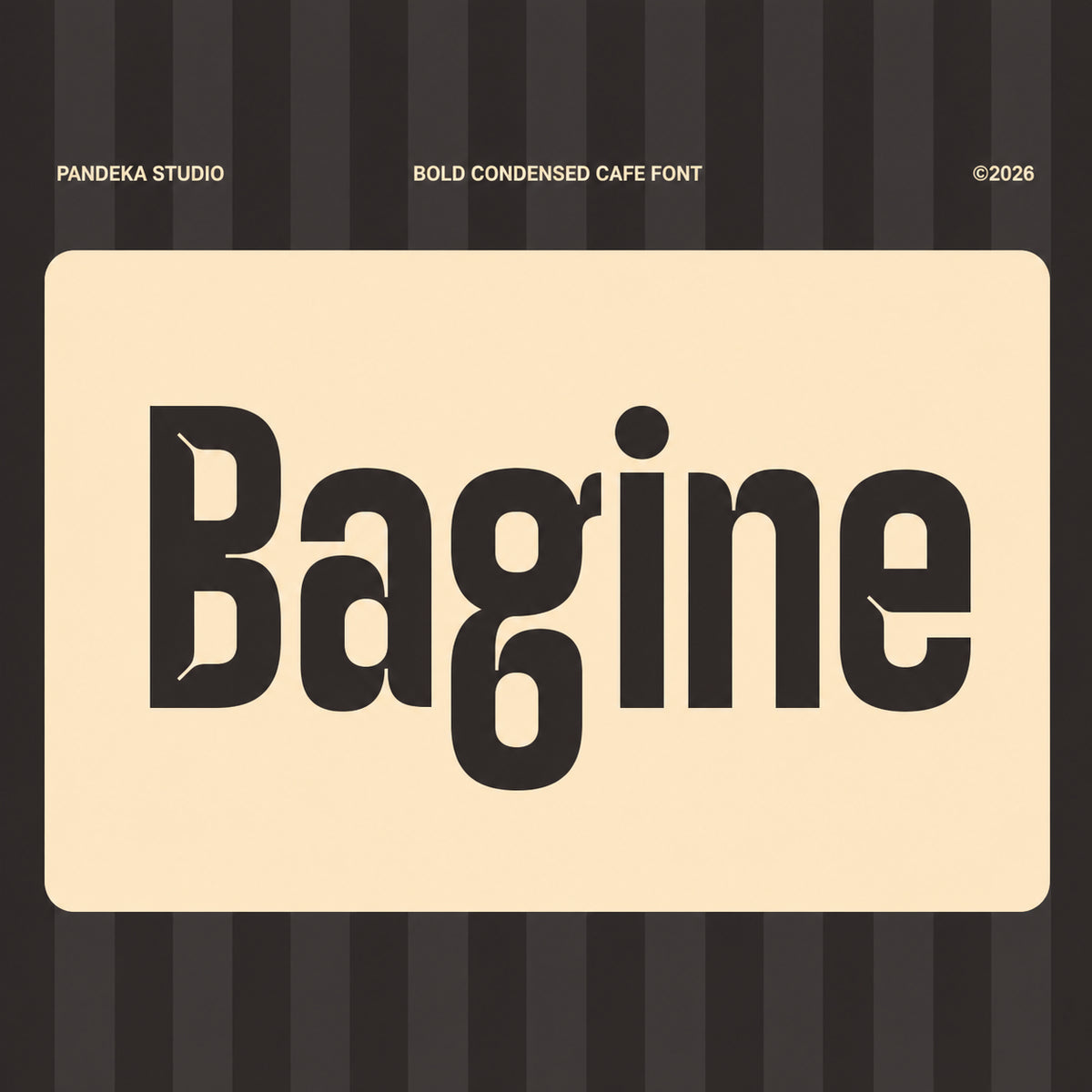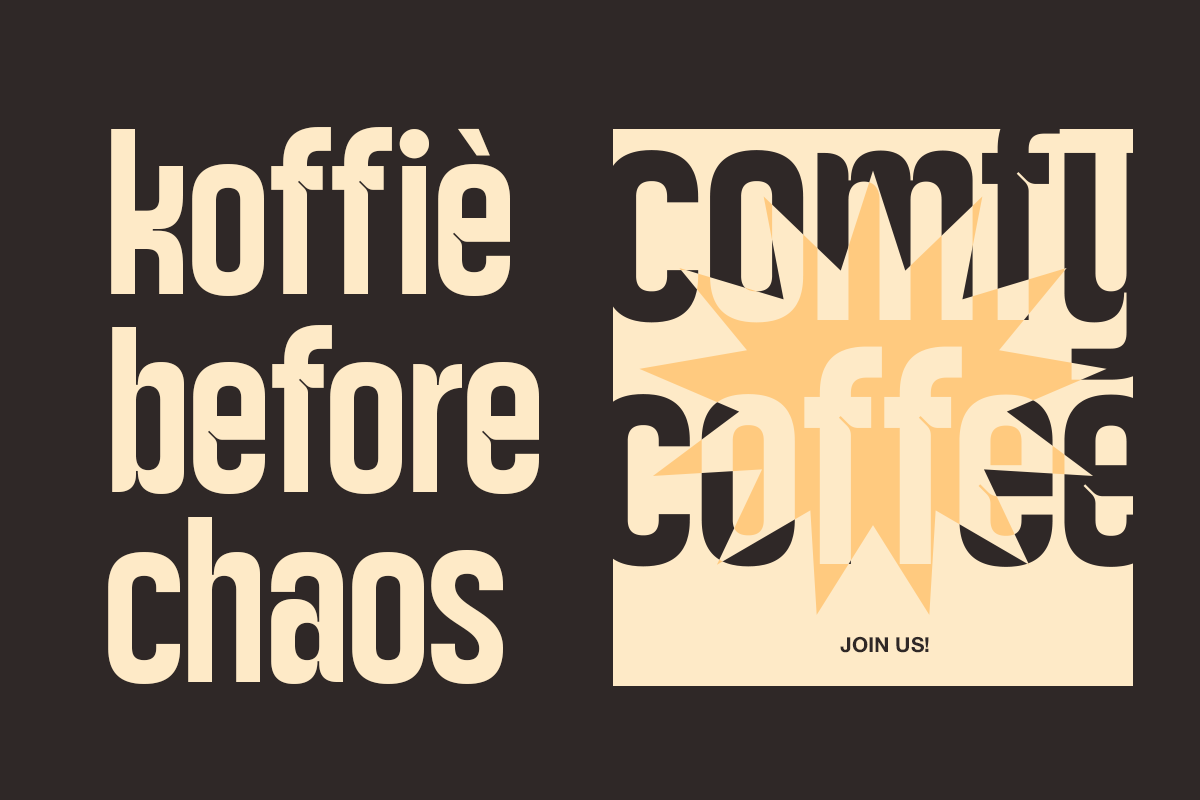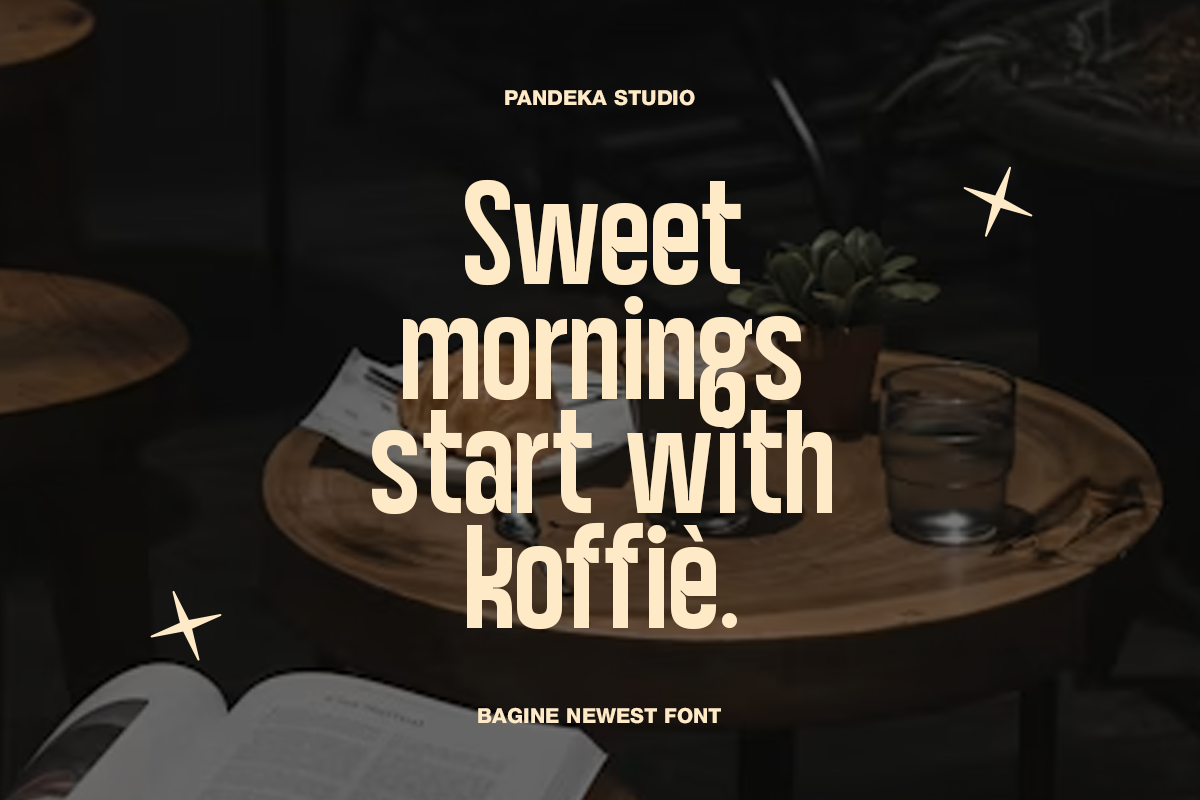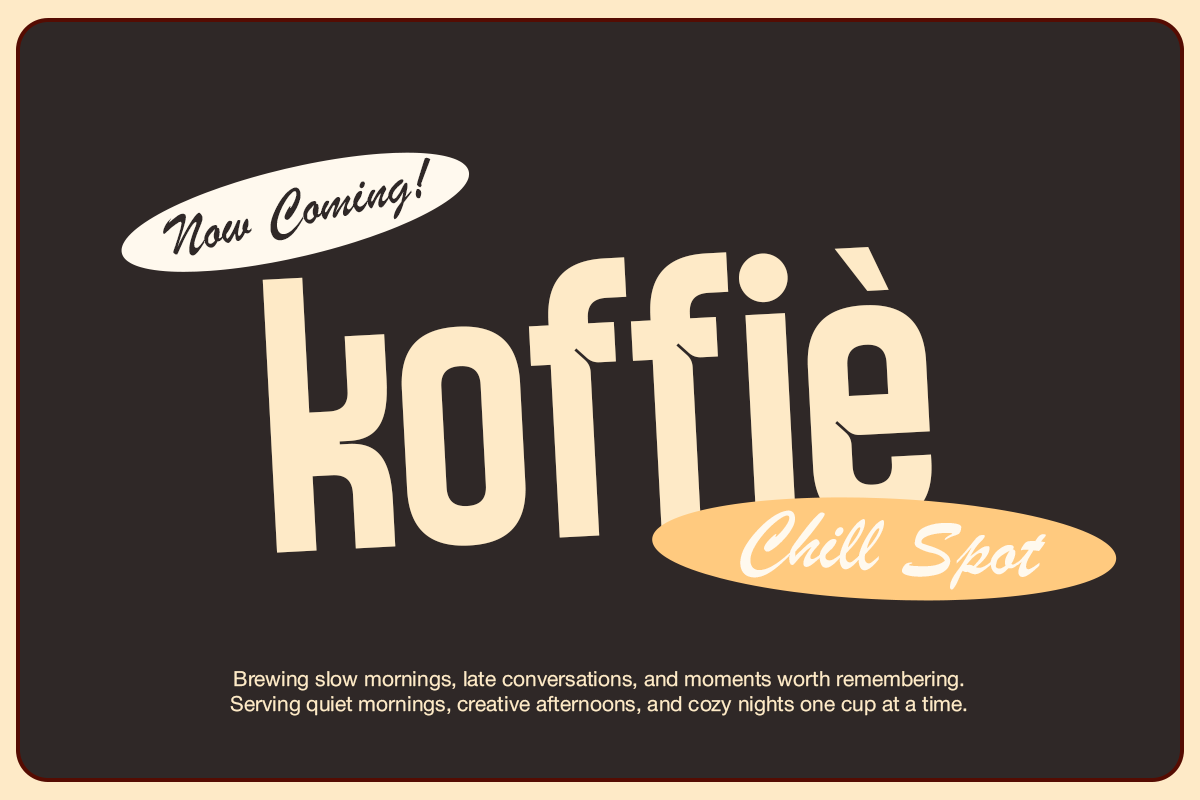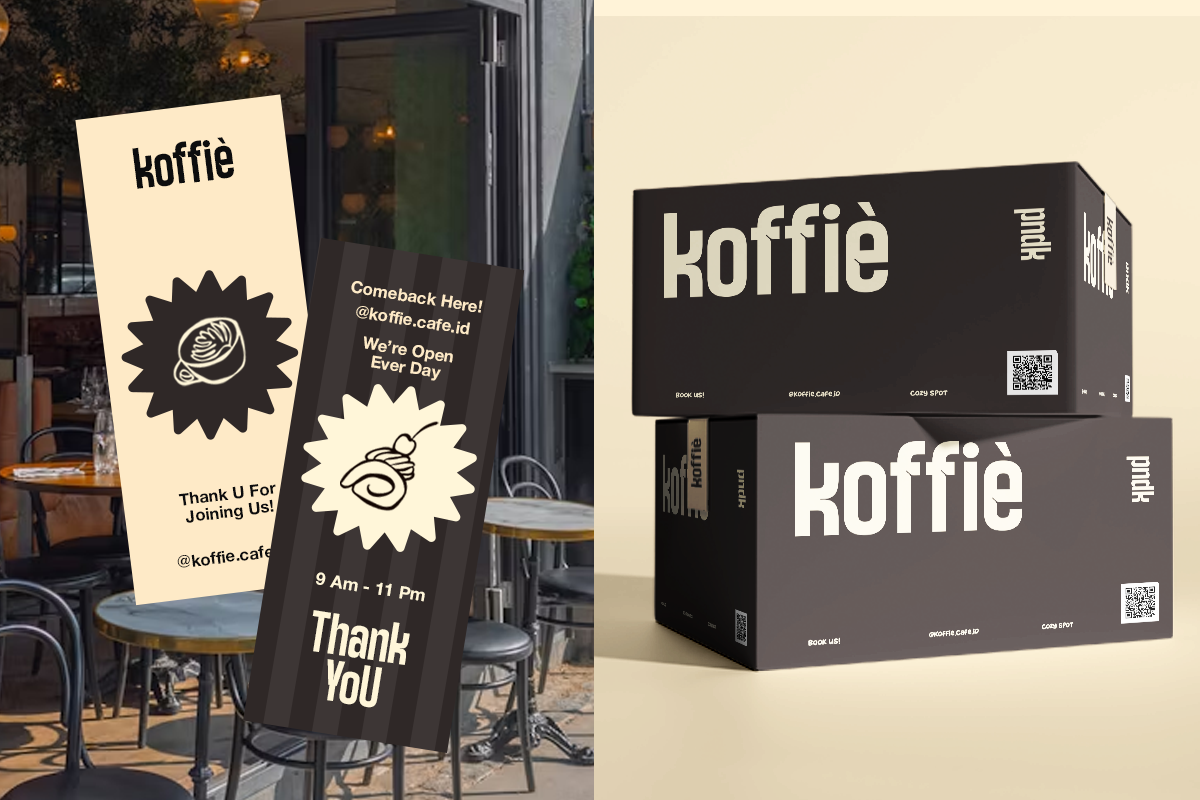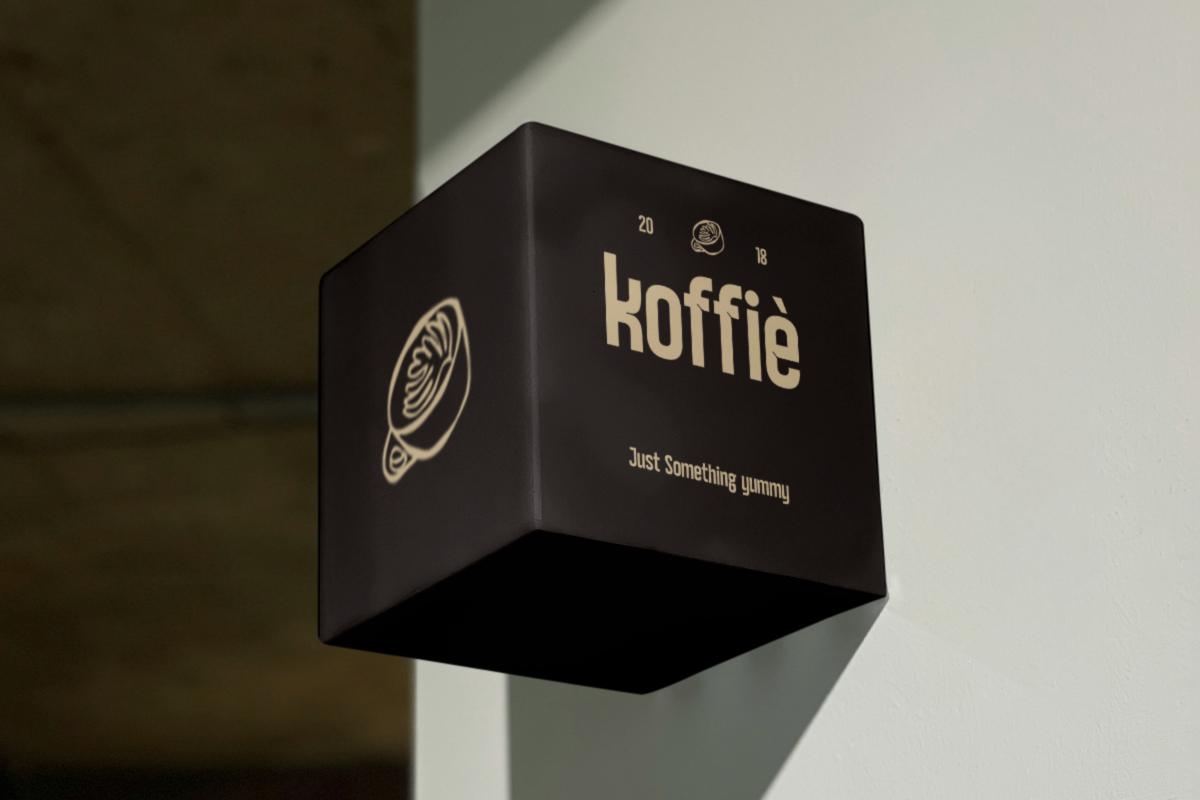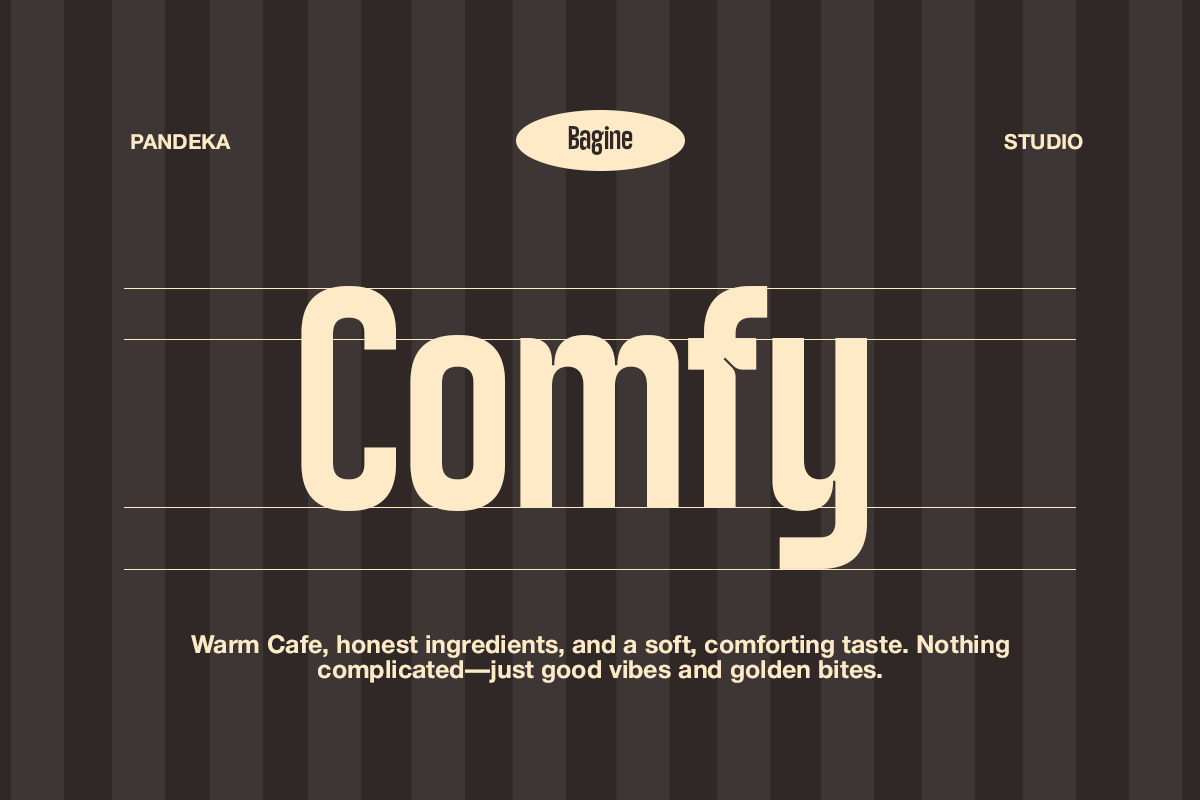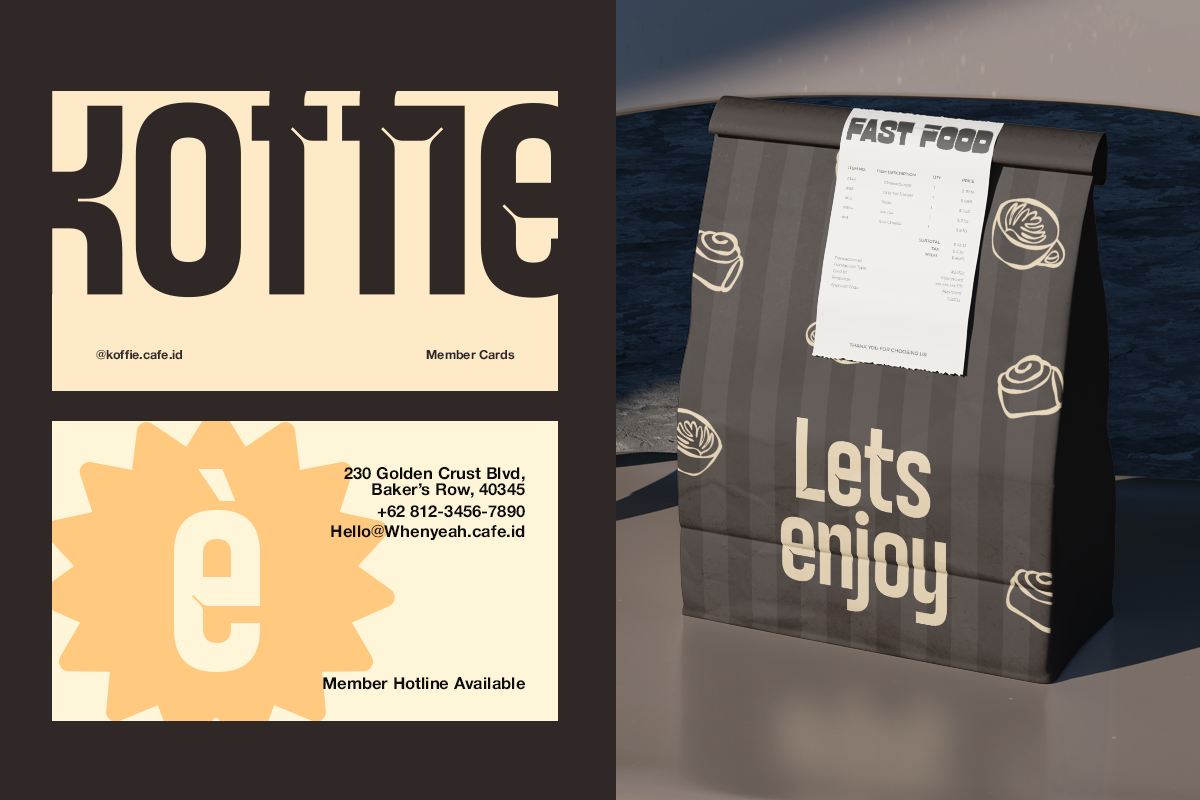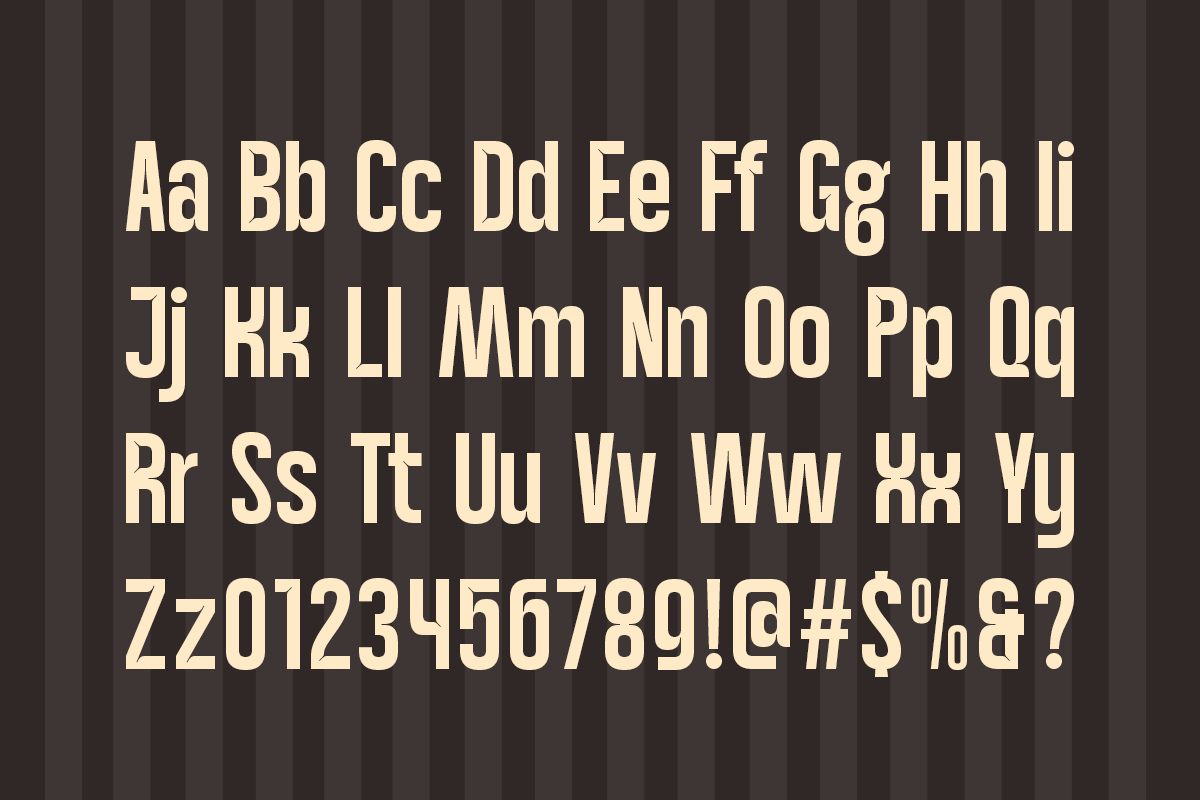
Bagine - Bold Condensed Cafe Font
Bagine is a bold condensed cafe font crafted to bring a warm, stylish, and modern atmosphere to your designs. Its tall letterforms and strong vintage-inspired character make it perfect for cafe branding, coffee shop logos, packaging, menu boards, posters, restaurant signage, bakery labels, and cozy lifestyle visuals. The bold condensed style creates eye-catching typography while still feeling friendly and inviting.
Designed with 1 regular style, Bagine works beautifully for branding projects that need a clean yet expressive look. Whether used for café promotions, food packaging, social media posts, product labels, or modern retro layouts, this font delivers a charming and memorable visual identity.
Full Character Set: Uppercase, lowercase, numbers, symbols, and punctuation